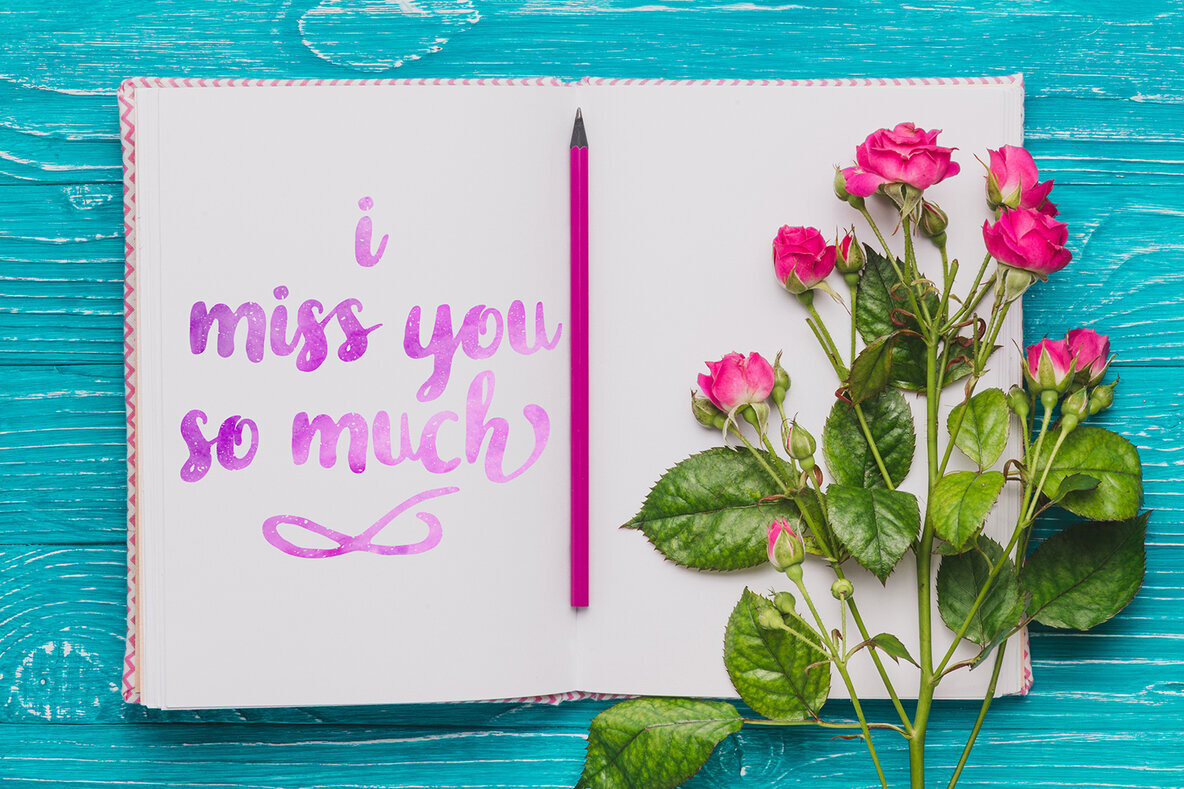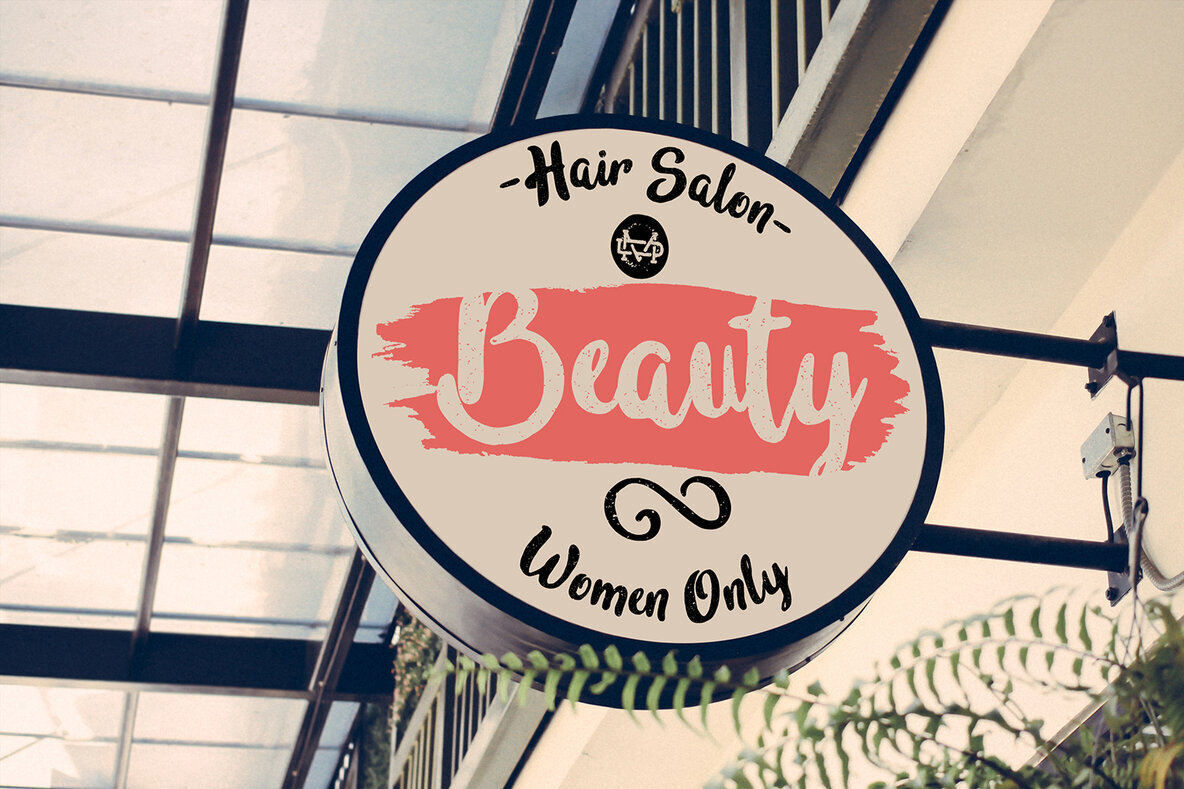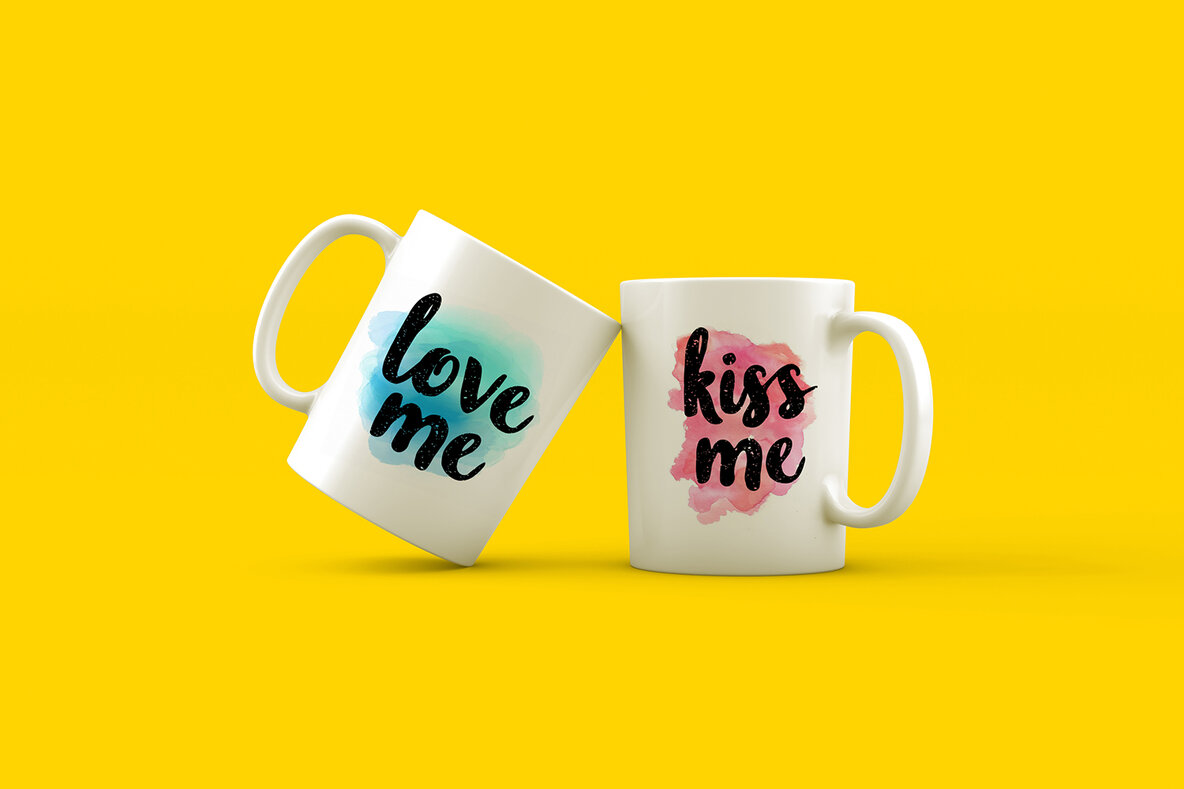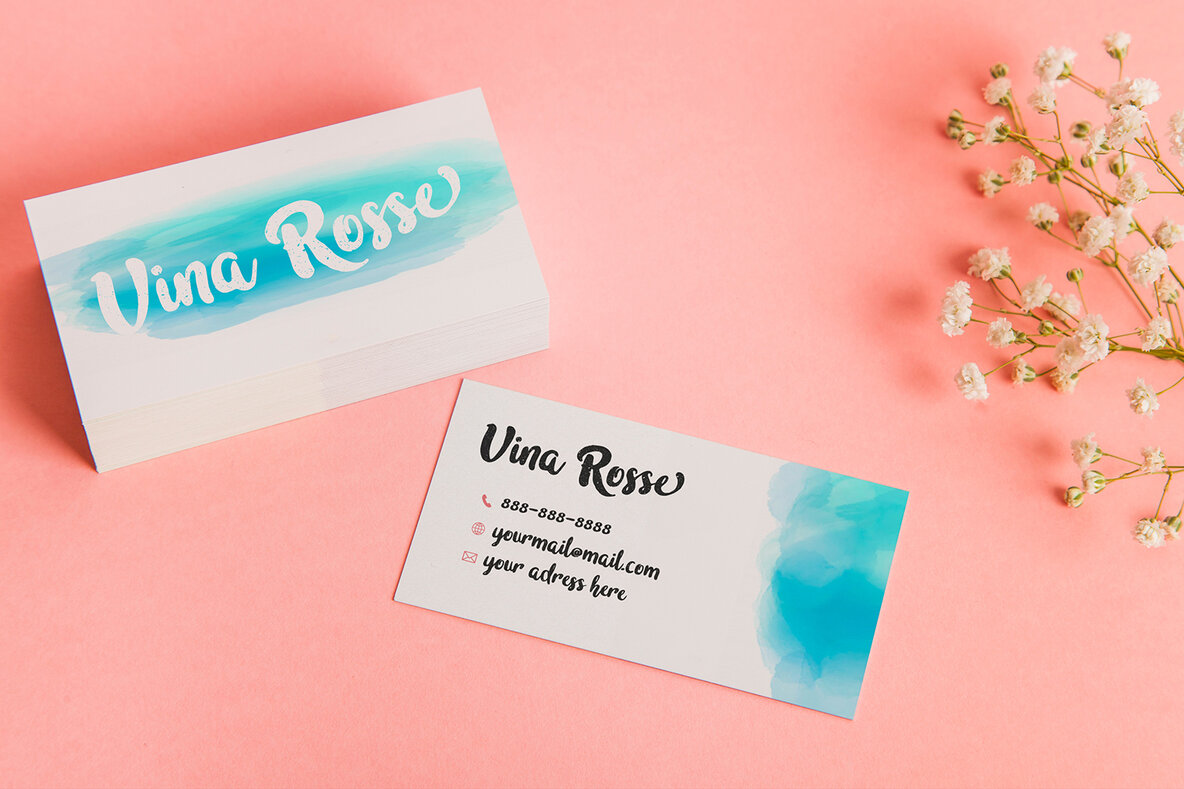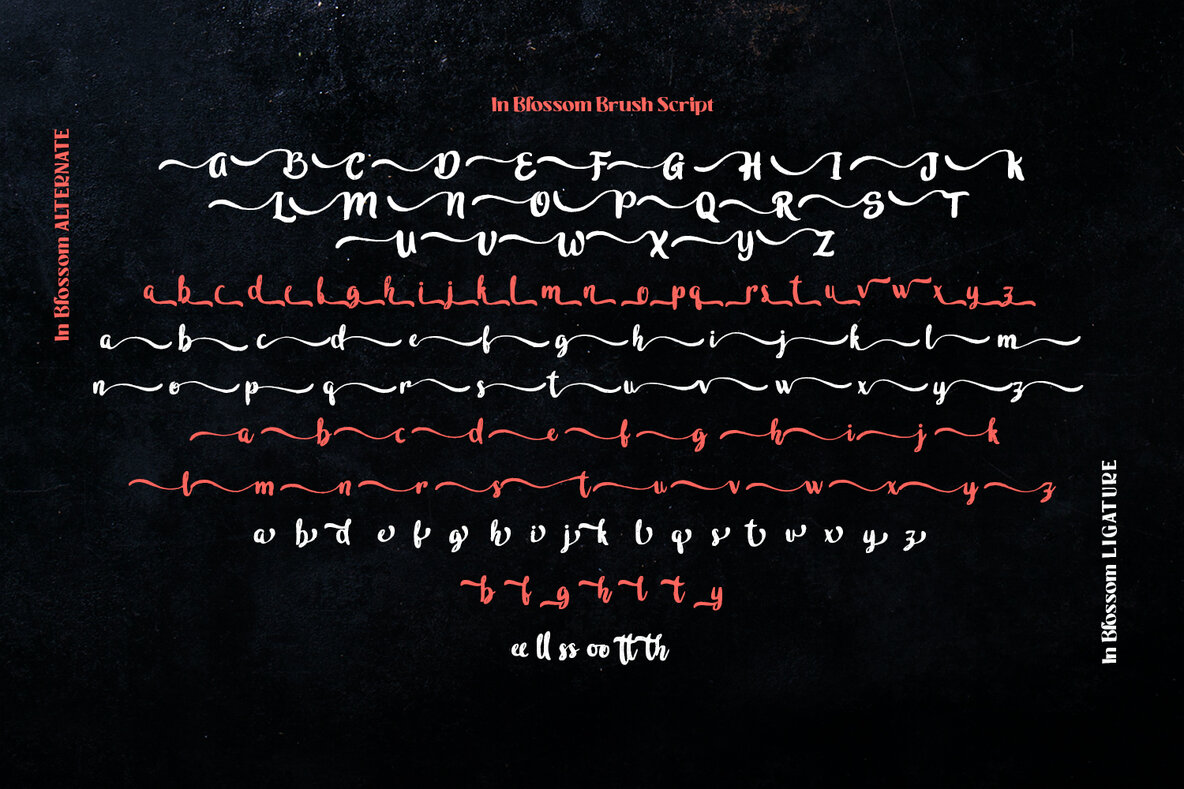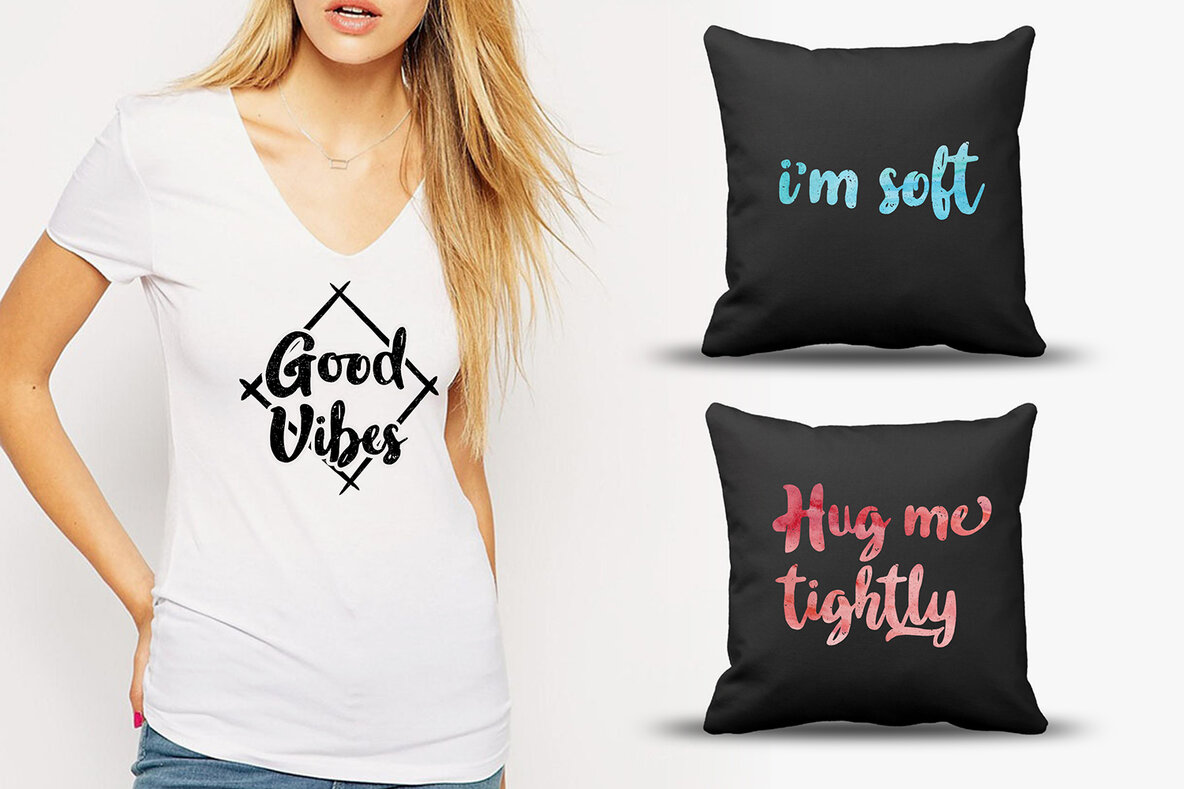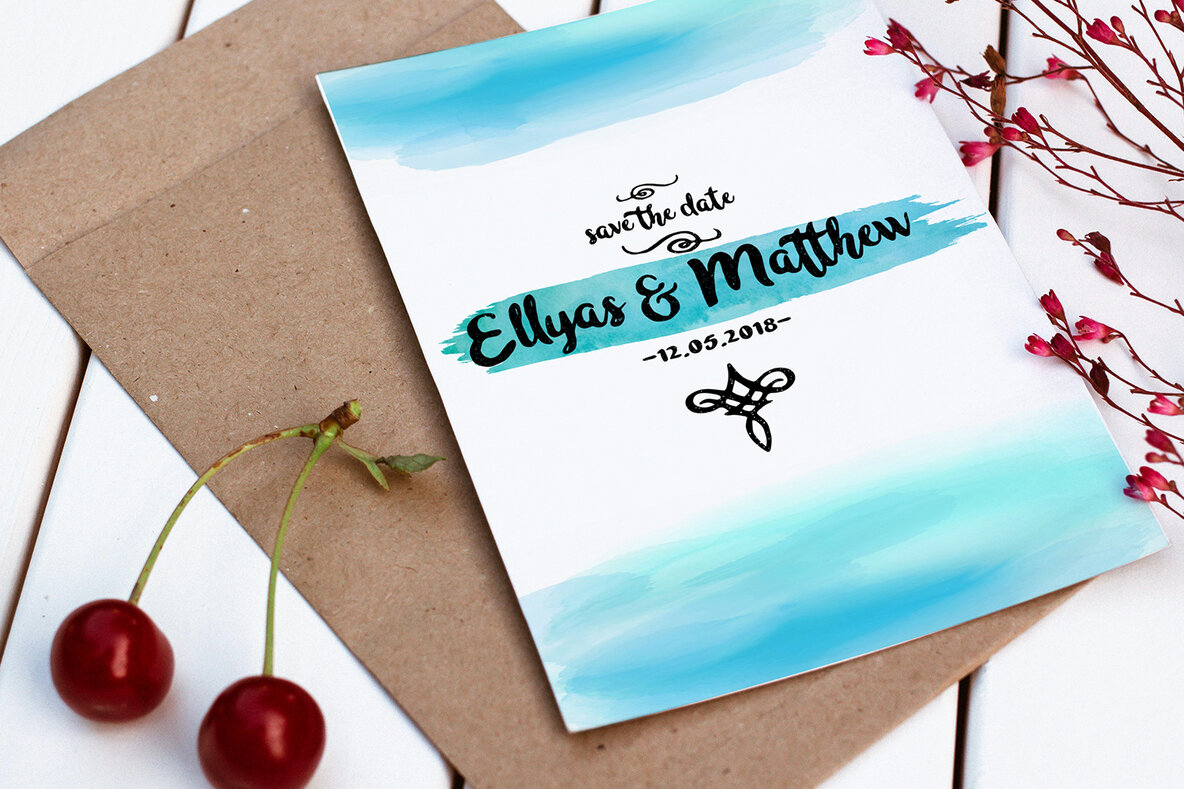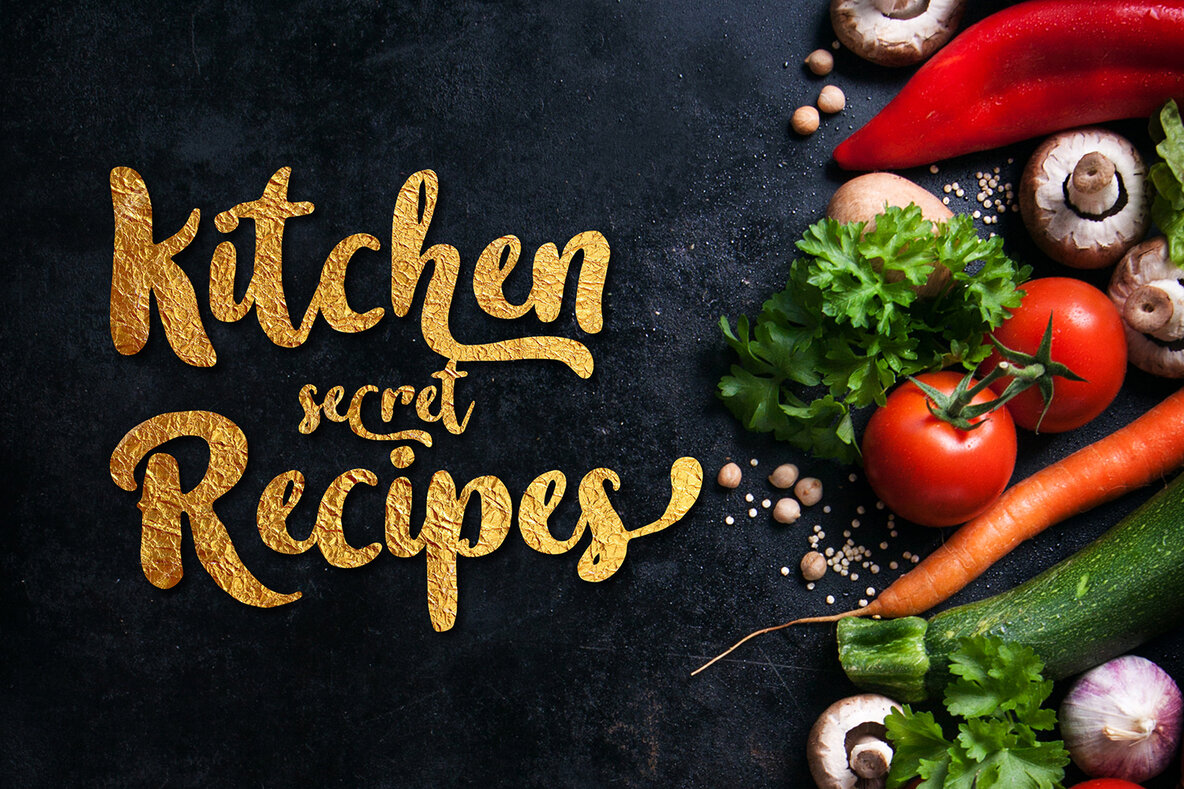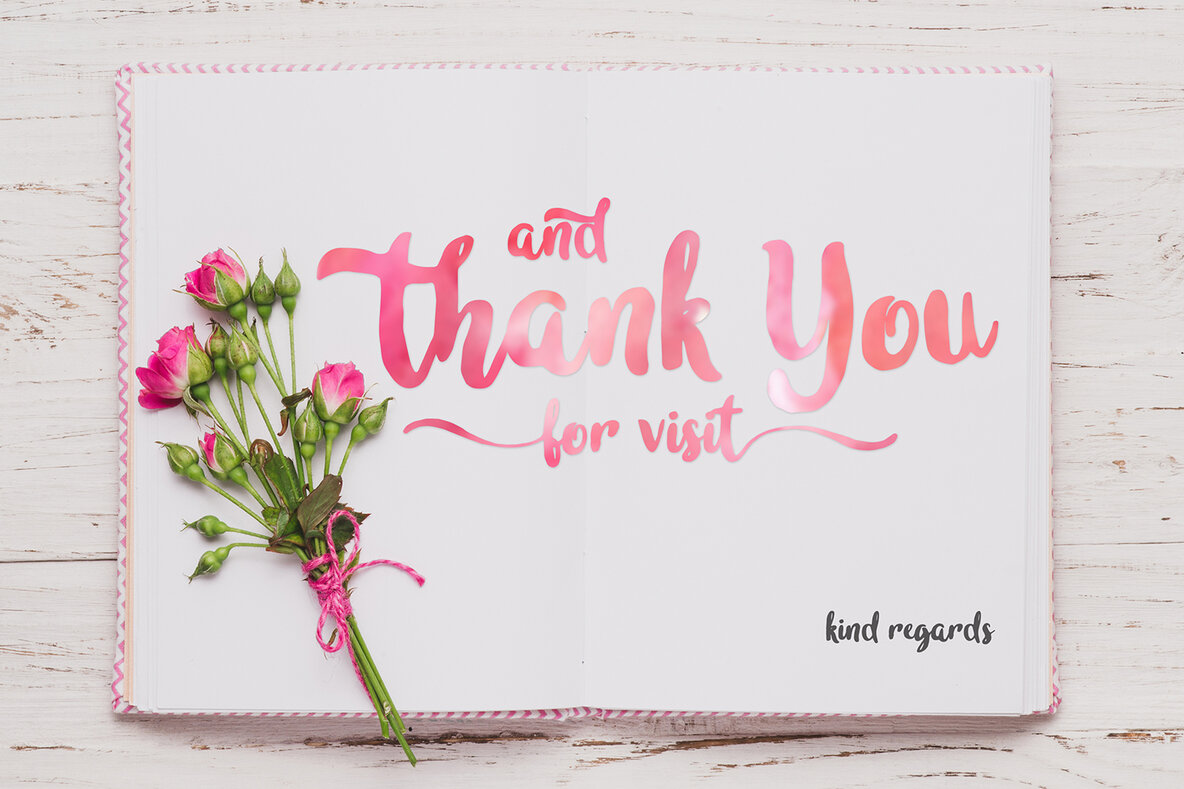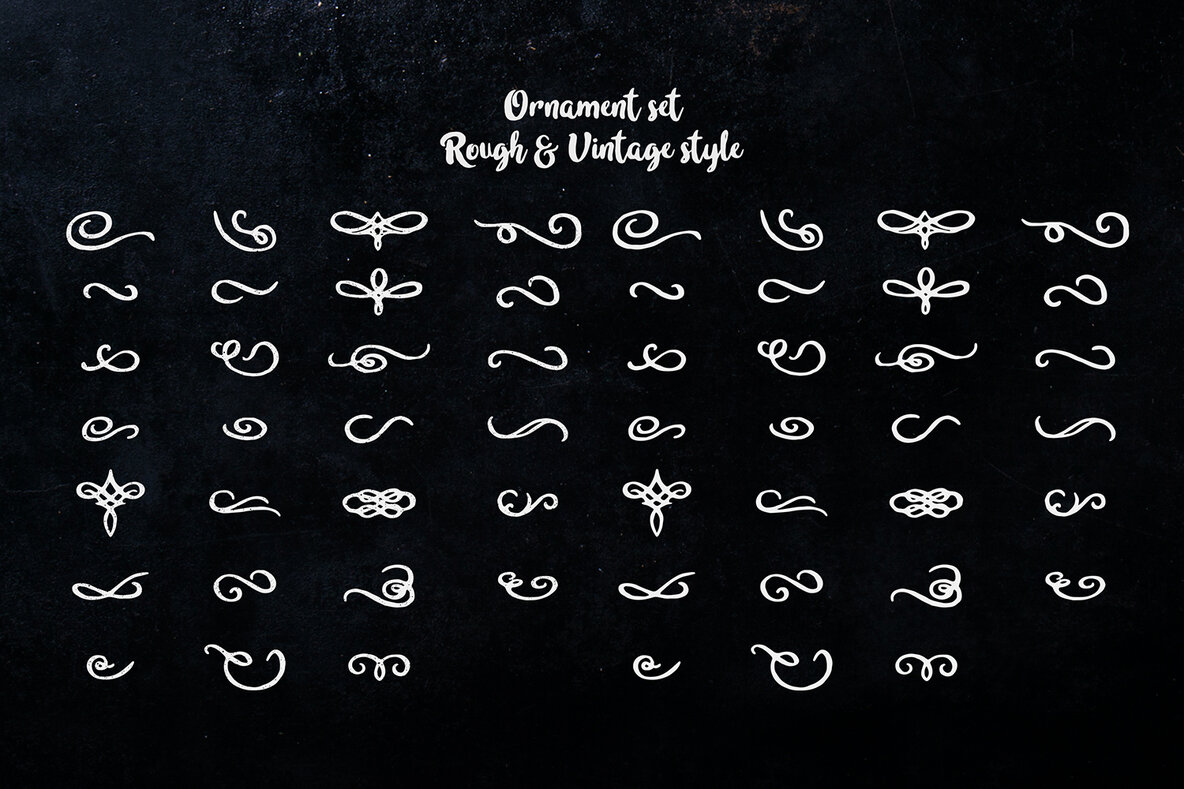
In blossom Font
In blossom Regular
In blossom vintage
In Blossom captures the essence of bold handwriting, bringing a dynamic flair to any design project. With over 350 glyphs, this font embodies a playful yet sophisticated spirit that suits a variety of design and event applications.In Blossom: Bold Handwriting with Distinct Character